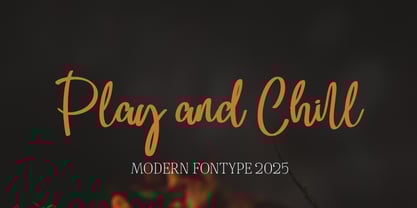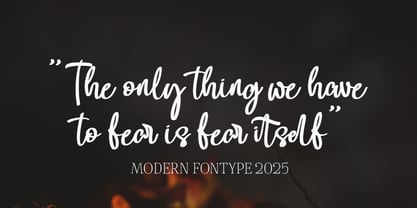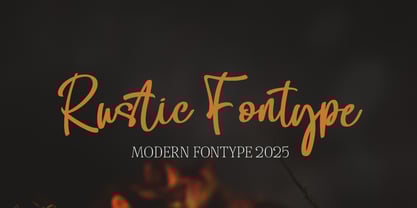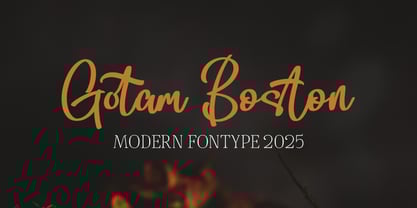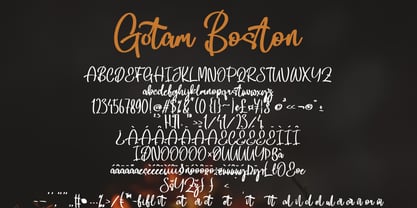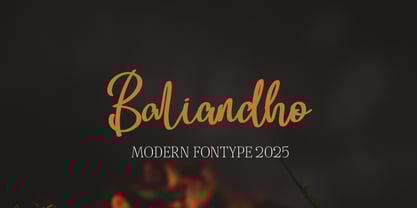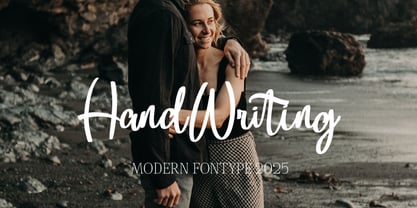
Gotam Boston
by Naatypo
The Gotam Boston Font Family was designed by Kurnia Elis Setyorini and published by Naatypo. Gotam Boston contains 1 styles. More about this family
Introducing the Gotam Boston. A stunning pair of luxury script and sans fonts, designed to contrast & compliment each other with elegant beauty and contemporary style. This typeface is a perfect for an invitation, posters, logo, and many more.
Designers: Kurnia Elis Setyorini
Foundry: Naatypo